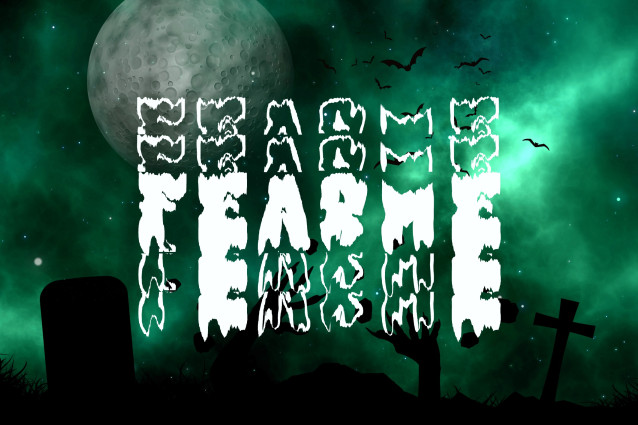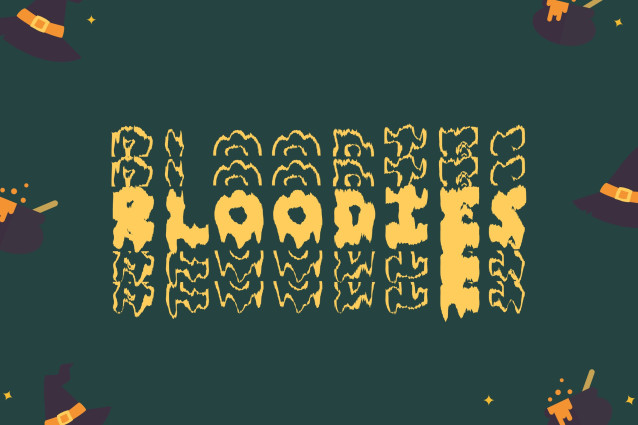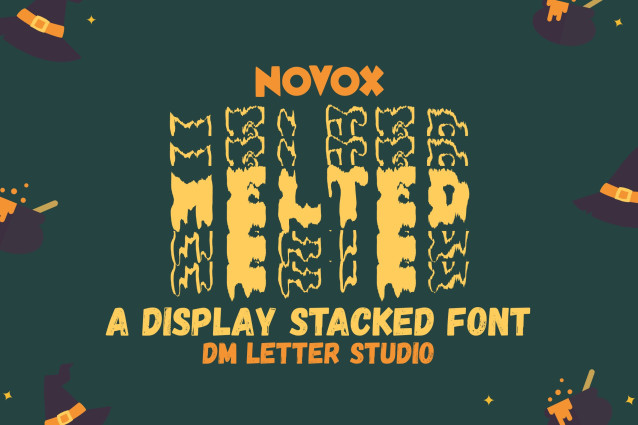
Novox Melted Stacked Font
Novox Melted Stacked Font is a daring and expressive display font with a unique “melted” appearance, designed to stand out in a stacked, vertical orientation. It features heavy drips and irregular forms that evoke a sense of heat, goo, or eerie transformation—perfect for bold creative work. Whether you’re designing for horror themes, urban fashion, music posters, or edgy branding, this typeface commands attention.